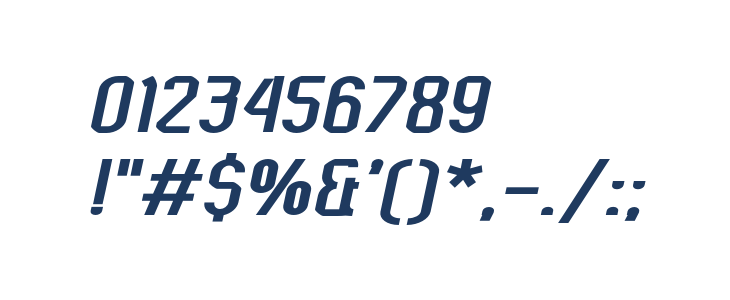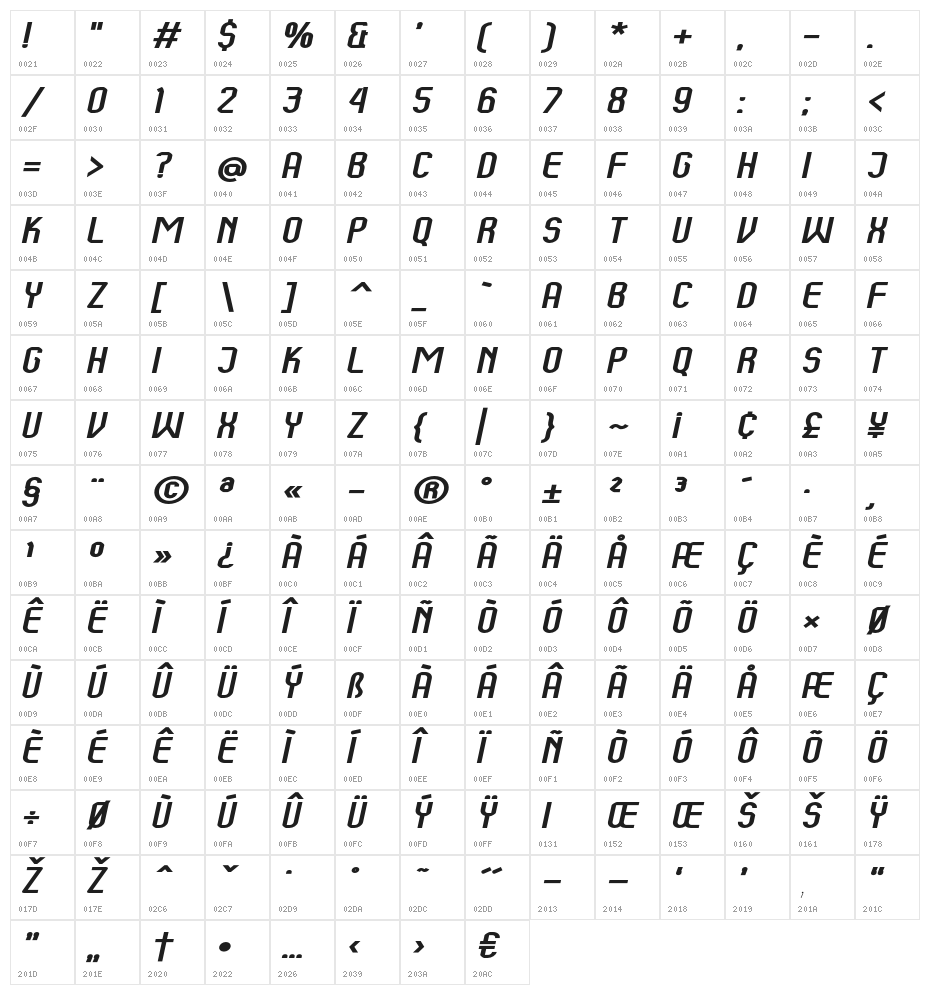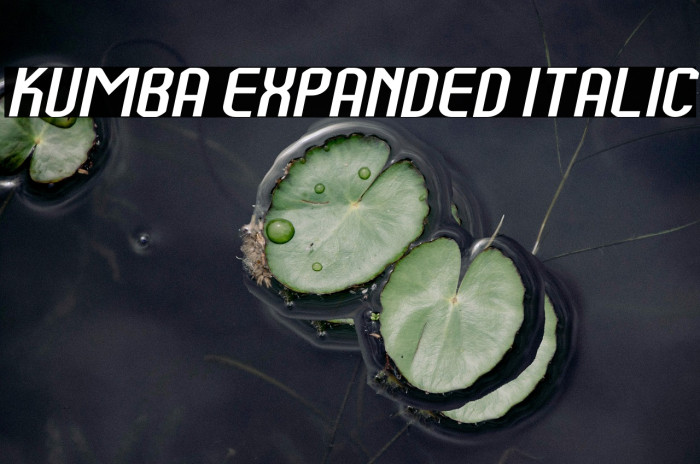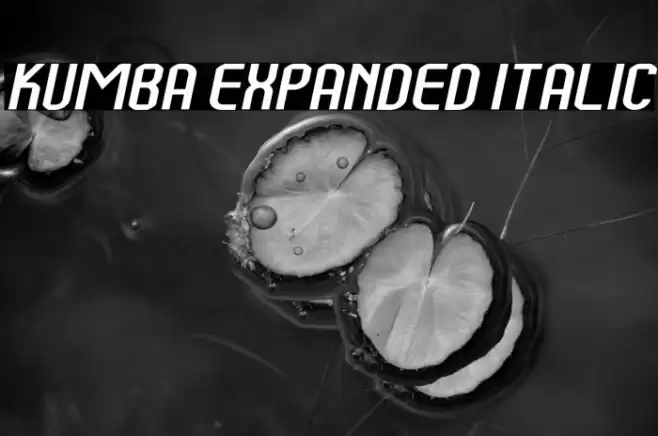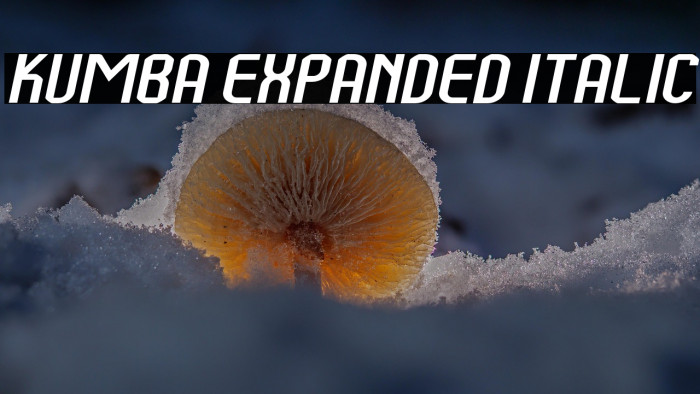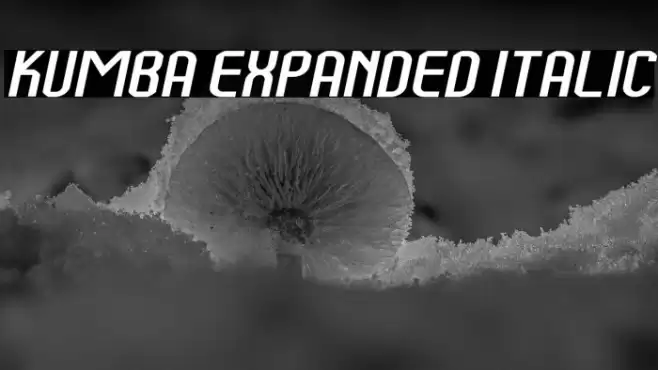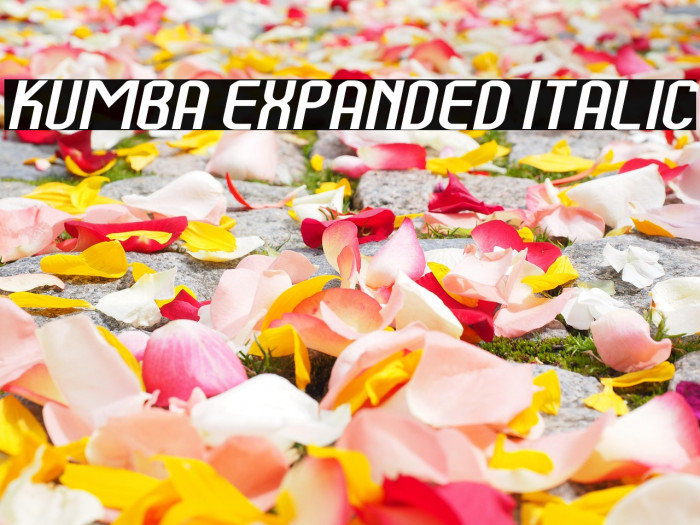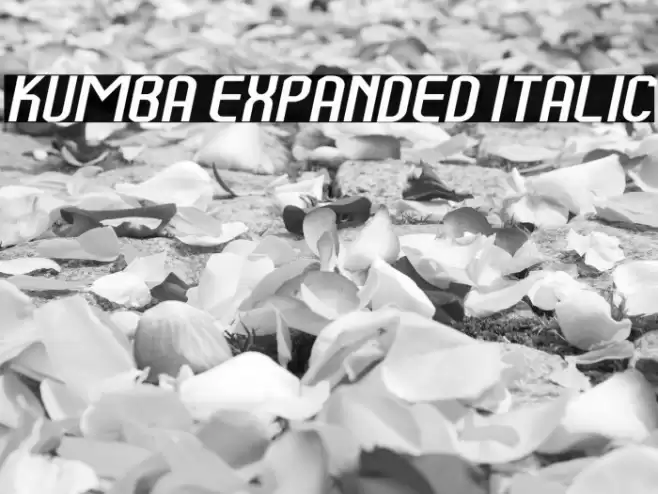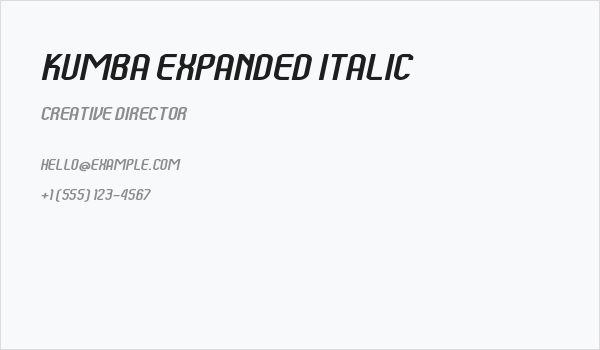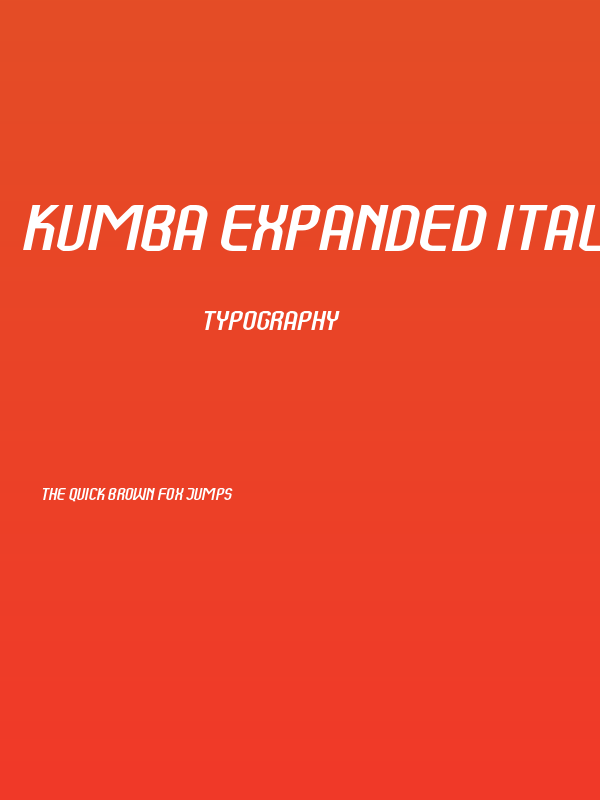
Kumba Expanded Italic Font
This typeface features a bold and dynamic appearance with an italic slant, giving it a sense of motion and energy. The characters are expanded, providing a wide stance that enhances readability and impact. The strokes are consistent in thickness, offering a uniform look across all characters. The design is modern and sleek, with a slightly futuristic feel. The uppercase and lowercase letters maintain a cohesive style, while the numerals and special characters integrate seamlessly, making it versatile for various applications.
Proposed ProjectsIdeal for branding, advertising, sports team logos, and dynamic headlines.